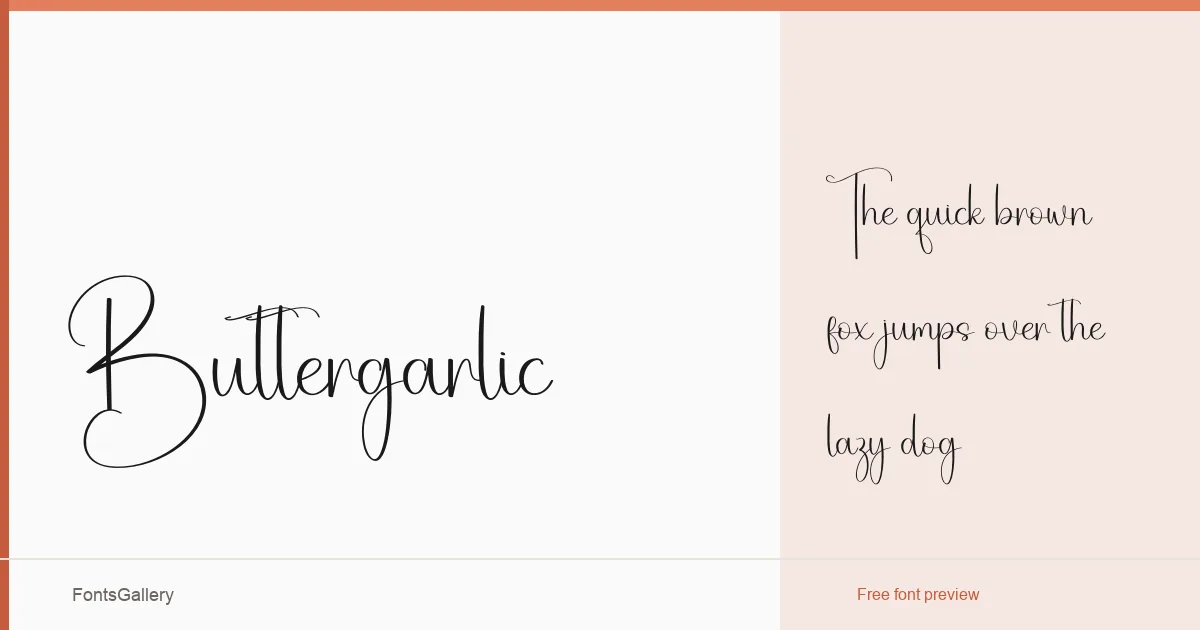
About Buttergarlic Font
Buttergarlic is a graceful script typeface that blends elegance with timeless romantic charm. Its flowing letterforms and refined strokes make it an instantly captivating choice for designs that call for a touch of sophistication. This typeface carries a classic sensibility that feels both luxurious and warmly personal.
Rooted in the script tradition, Buttergarlic features smooth, sweeping curves and carefully crafted connections between letters that evoke an elegant, handwritten quality. Its romantic character shines through in the graceful rhythm of its strokes, lending every word a sense of artistry and refinement. The classic aesthetic ensures it feels timeless rather than trendy, making it a versatile choice across a wide range of styled projects.
Buttergarlic is ideally suited for wedding stationery, invitation cards, greeting cards, logos, and branding projects where an elegant, romantic tone is desired. Its expressive script style pairs beautifully with the editorial flair of Aresink or the clean neutrality of Helvetica, creating a balanced contrast between ornate and minimal. These combinations work especially well in luxury branding, event materials, and lifestyle product packaging.